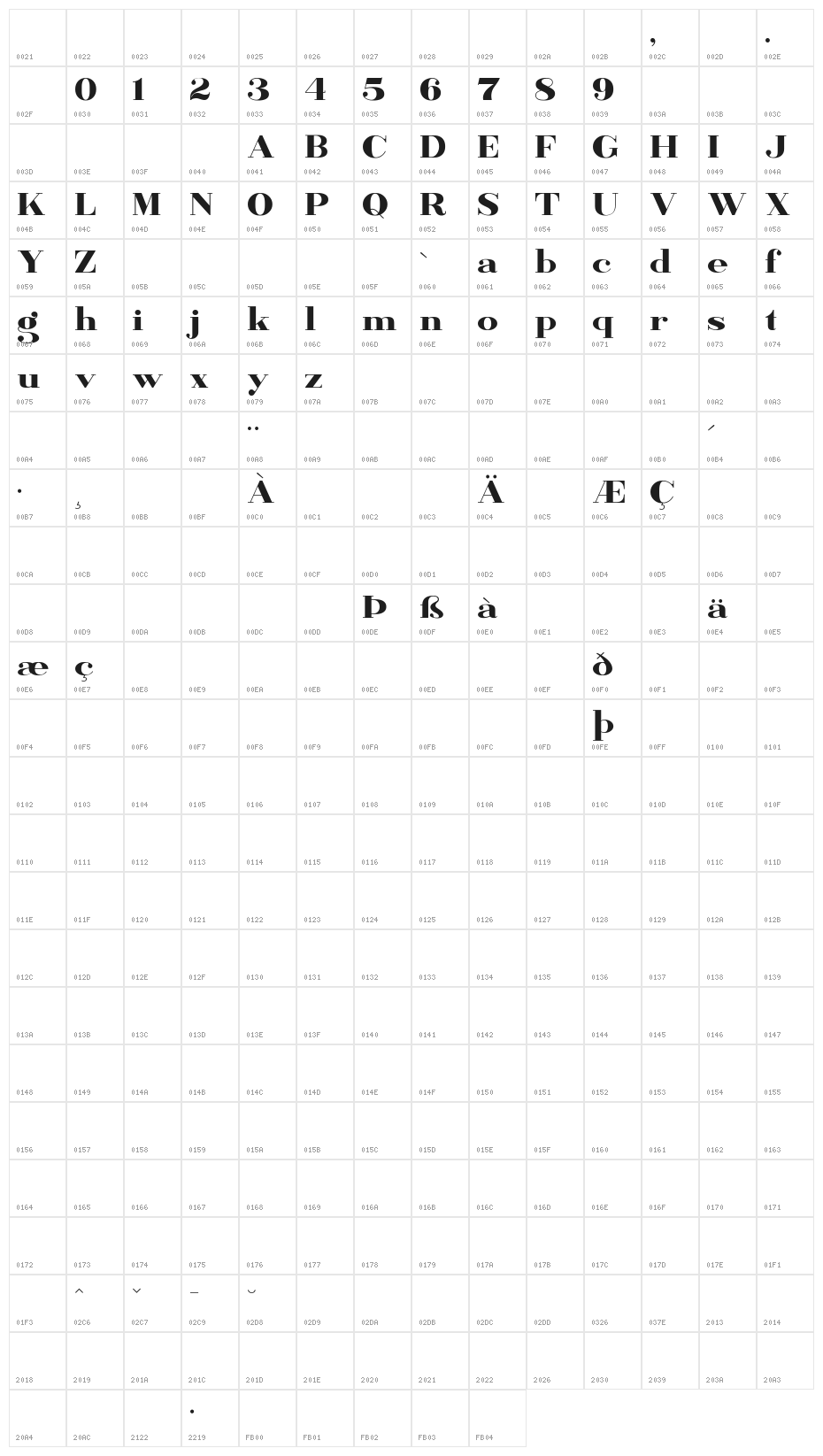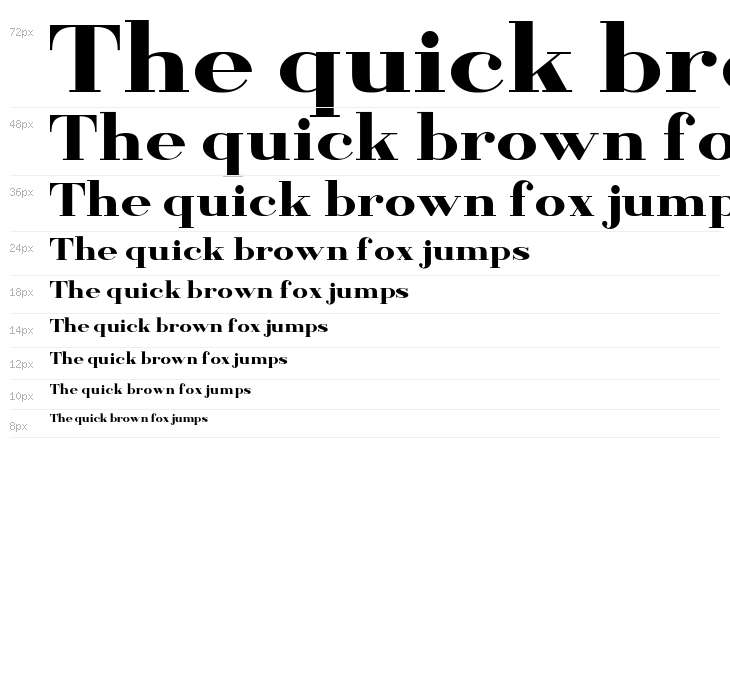
Banbury Font
Banbury Description
This font exhibits a sophisticated and elegant style, characterized by its high contrast between thick and thin strokes. The serifs are pronounced, adding a touch of classic refinement to the overall appearance. The uppercase letters are bold and commanding, while the lowercase letters maintain a graceful flow. The numerals are distinct and well-defined, ensuring clarity in numerical expressions. The special characters are crafted with precision, complementing the font's overall aesthetic. This font is ideal for projects that require a touch of elegance and sophistication.
| Overall Style | Classic |
| Use Case | Headlines, Logos, Editorial design |
| Proposed Projects | Ideal for luxury branding, editorial design, invitations, and high-end packaging. |